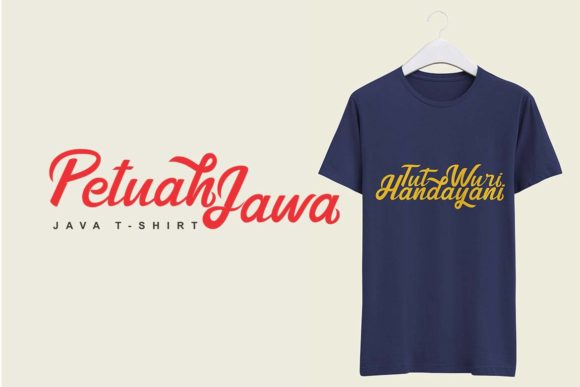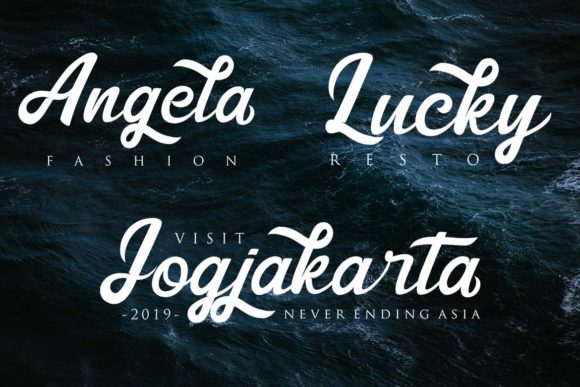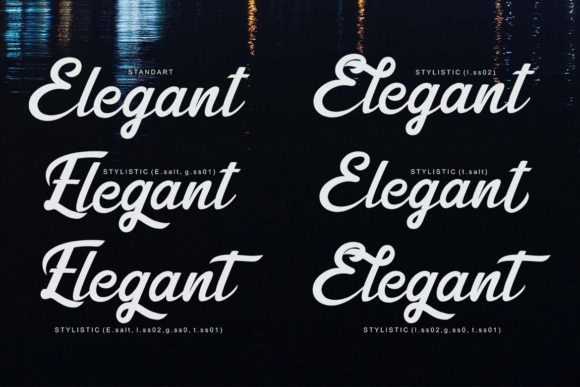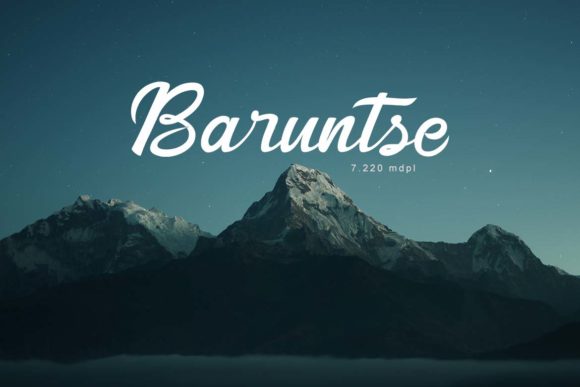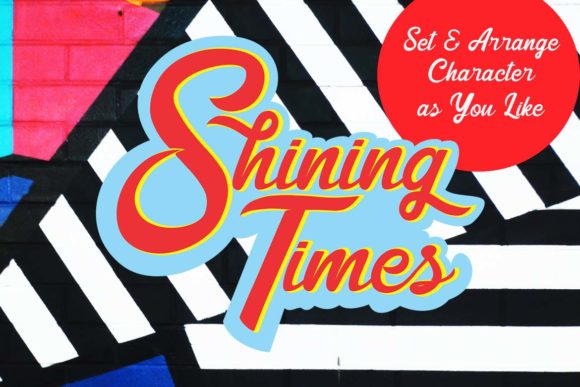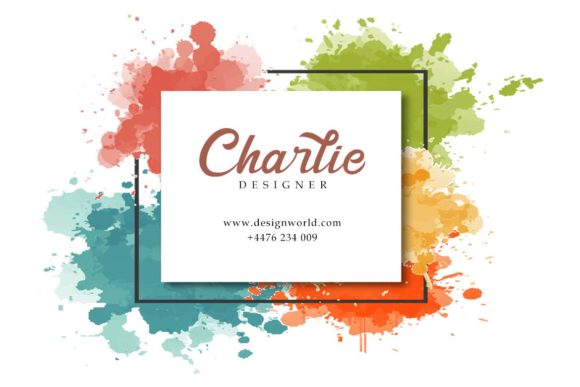
Introduction to Shining Times Font
Have you ever been working on a creative project, staring at a blank canvas, and suddenly, a spark of inspiration hits you? That’s exactly what happened when designers first laid eyes on the Shining Times Font. This stunning script font is more than just a design resource – it’s a game-changer for any creative project that requires a modern and dynamic feel.
The Shining Times Font is a high-quality addition to any designer’s toolkit, offering a unique and eye-catching way to express their brand’s personality. With its transparent background, this versatile font is perfect for logo designs, lettering, clothing, posters, and much more. Whether you’re a seasoned pro or just starting out, the Shining Times Font is a valuable resource that’s sure to elevate your designs to the next level.
- High-quality font design, perfect for creative projects requiring a unique touch
- Includes a range of characters, including uppercase and lowercase letters, numbers, and punctuation marks
- Size: The font family includes 6 different font styles, each with its unique characteristics, allowing designers to experiment with different looks and feels
Honest Review: Shining Times Font
As a designer, I’m always on the lookout for high-quality design resources to elevate my creative projects. Recently, I came across the Shining Times Font, and I’m excited to share my honest review with you.
- ✨ The font’s modern and sleek design makes it perfect for minimalist and futuristic-themed projects.
- ✨ The transparent background option allows for seamless integration with any design element.
- ⚠️ The font may not be suitable for projects that require a wide range of font sizes, as it can appear pixelated at larger sizes.
Overall, I’m impressed with the Shining Times Font’s quality and versatility. While it may have some limitations, it’s an excellent addition to any designer’s toolkit. If you’re looking for a high-quality, modern font for your creative projects, the Shining Times Font is definitely worth checking out.
The Shining Times Font is commonly used in creative projects such as logo design, typography, and infographics. Its high-quality design and transparent background make it an ideal choice for designers looking for a unique and stylish font.